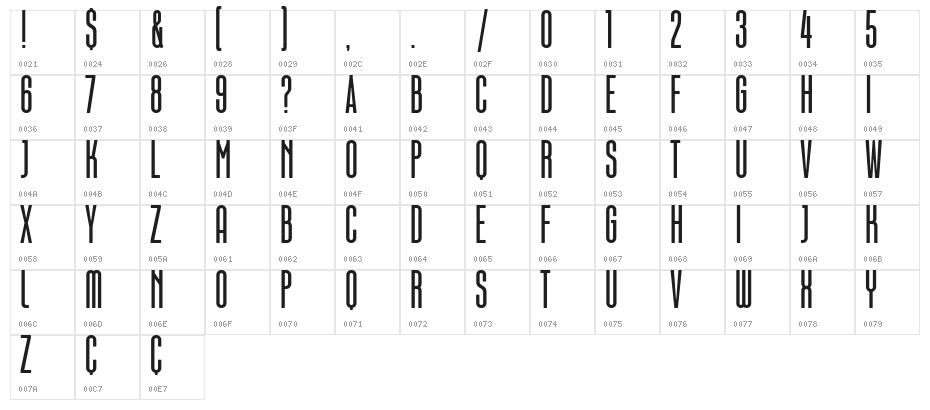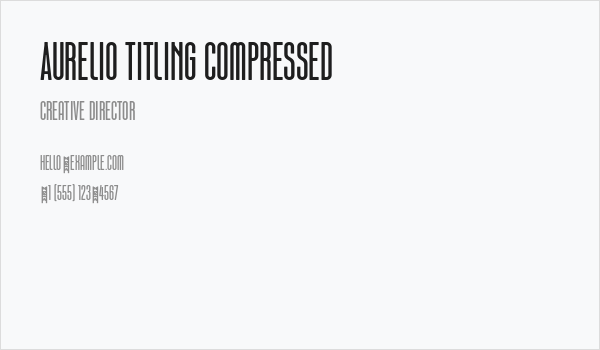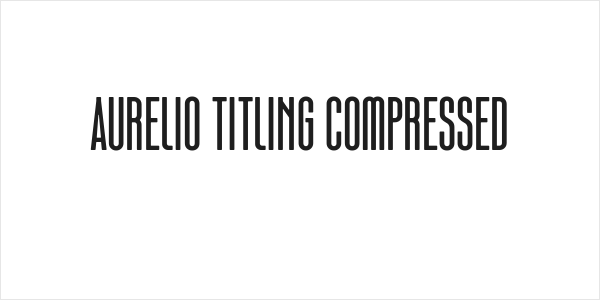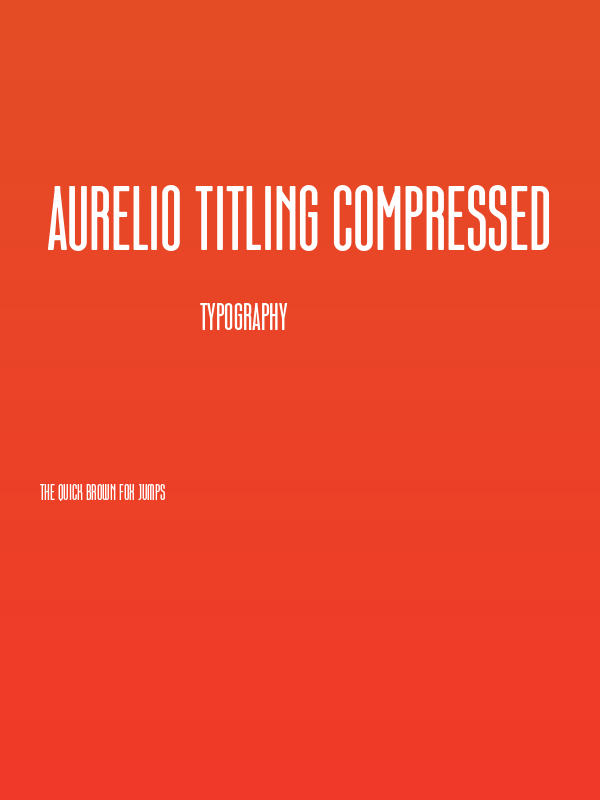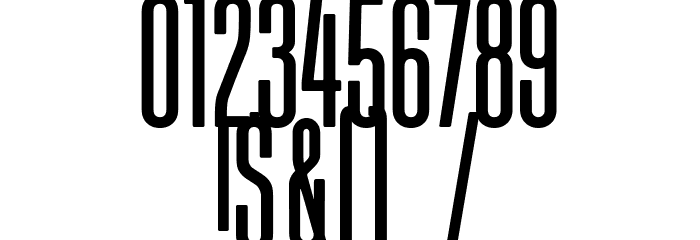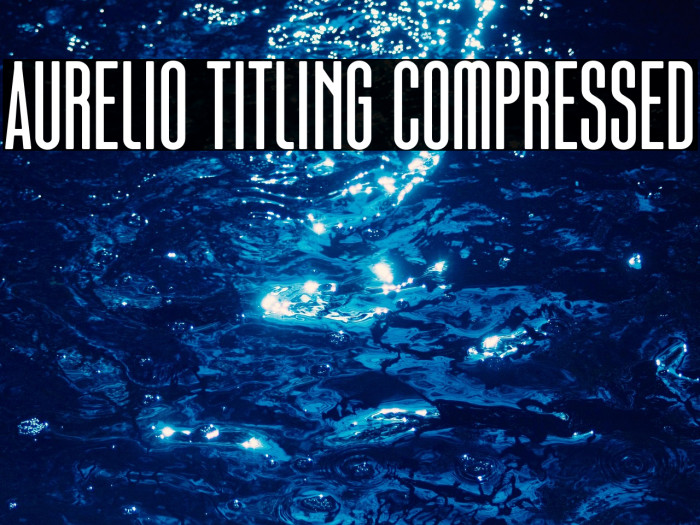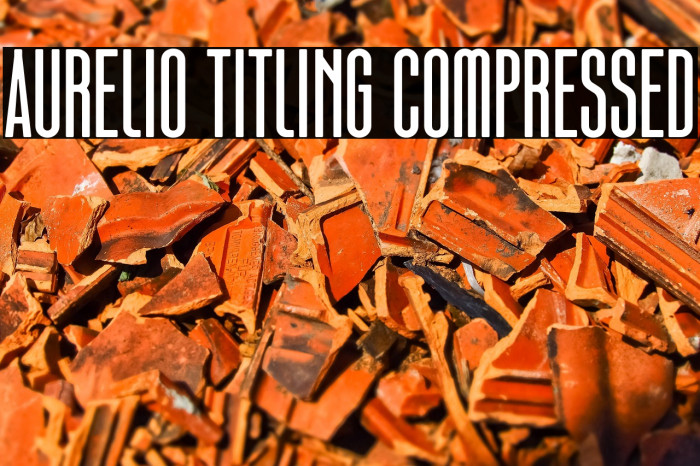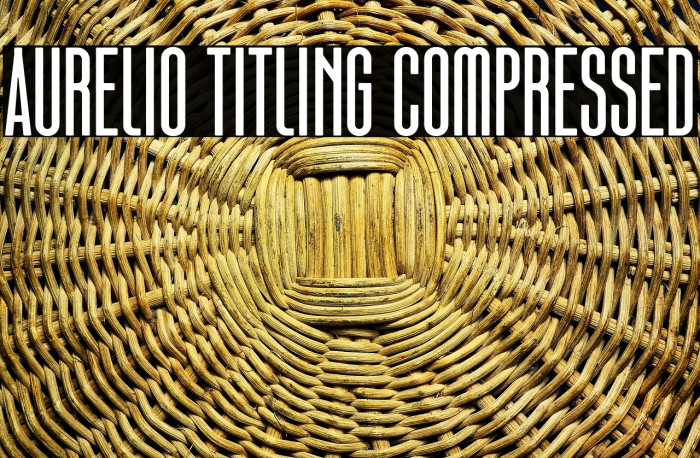
Aurelio Titling Compressed Font
Aurelio Titling Compressed Description
This font exhibits a strikingly tall and narrow design, characterized by its compressed and elongated letterforms. The uppercase letters dominate the visual space with their towering presence, while the lowercase letters maintain a similar vertical emphasis. The numerals and special characters are crafted to match the overall height and slenderness, creating a cohesive appearance. The font's clean lines and minimalistic approach lend it a modern and sophisticated feel, making it suitable for projects that require a bold yet elegant statement. Its unique structure is ideal for capturing attention in headlines or titles, where space is limited but impact is essential.